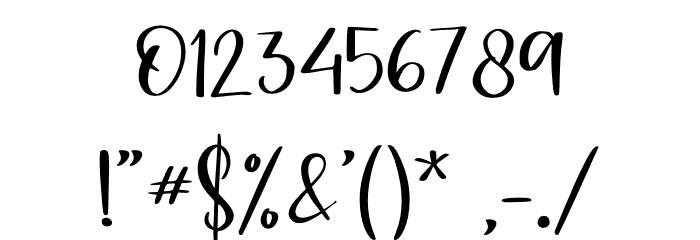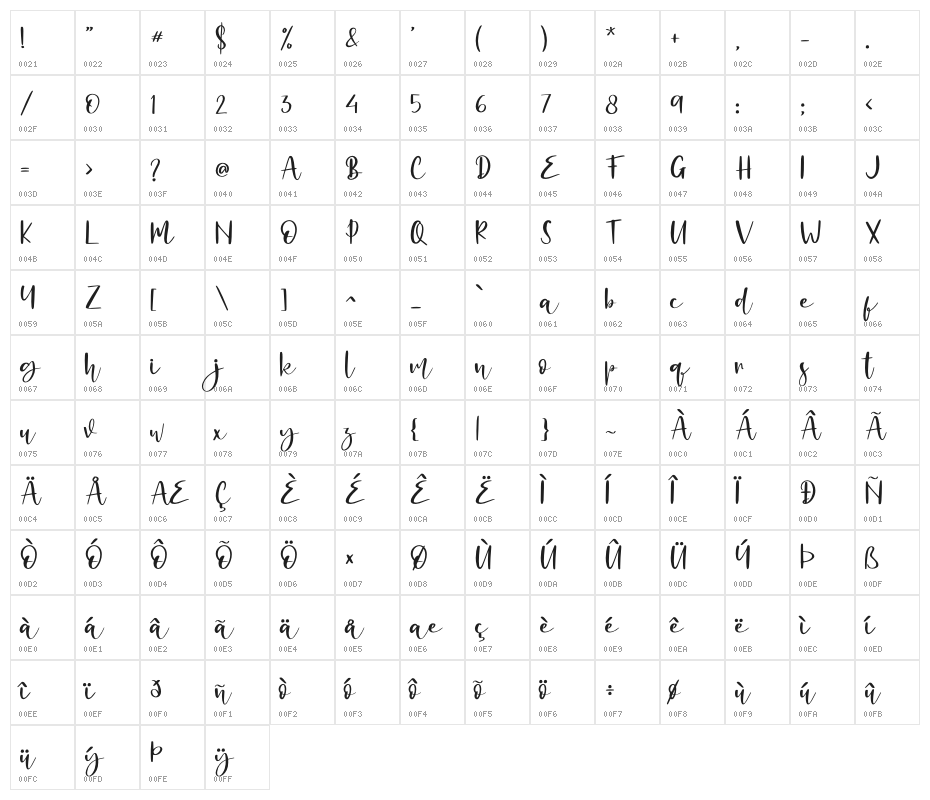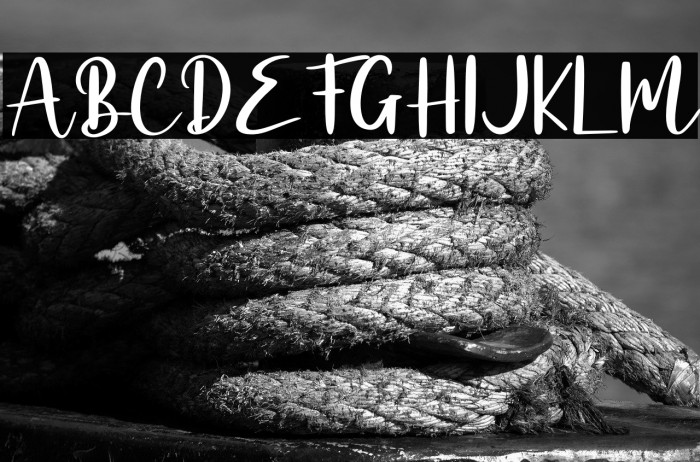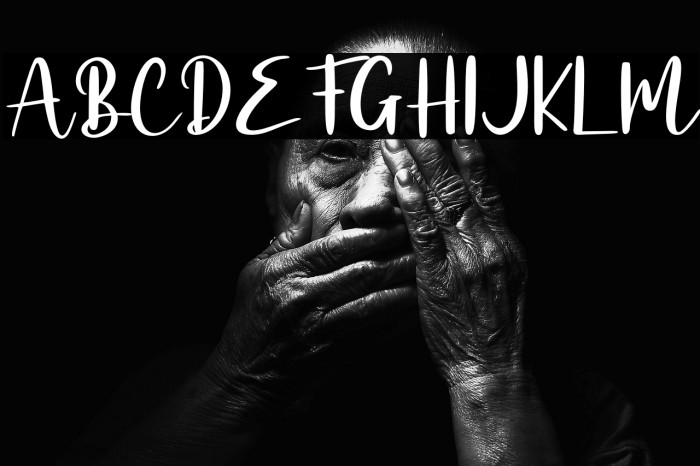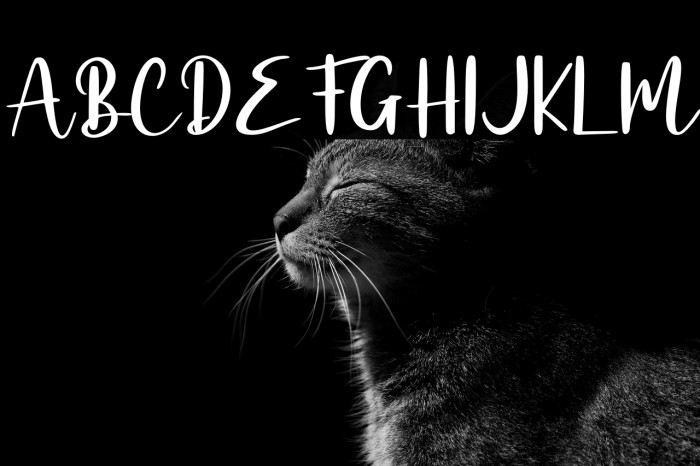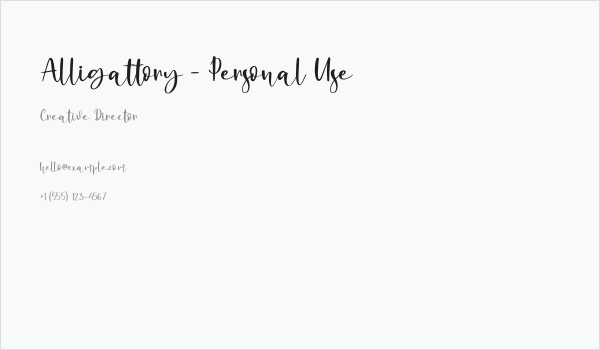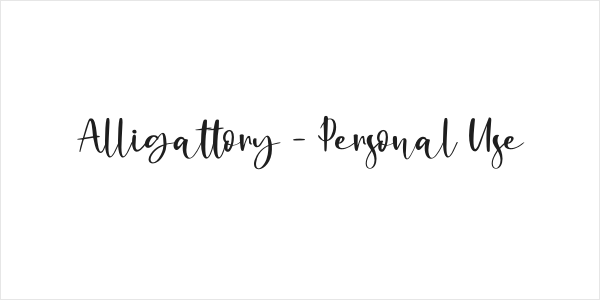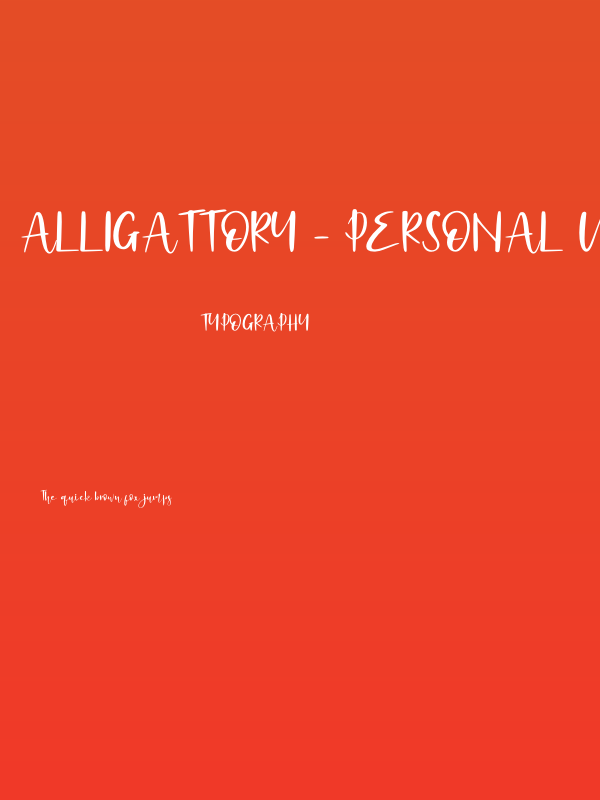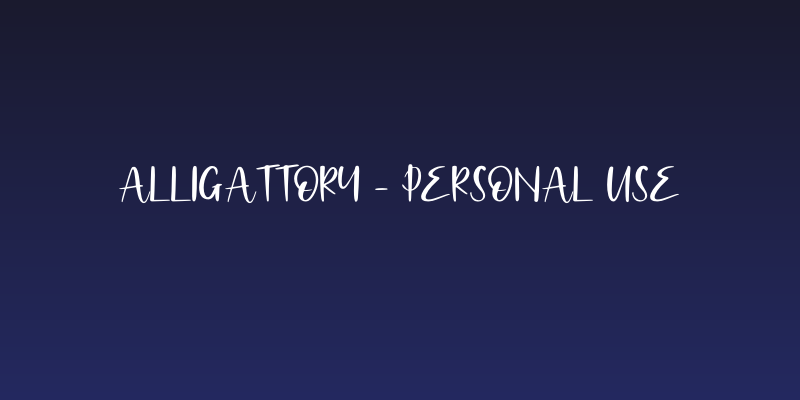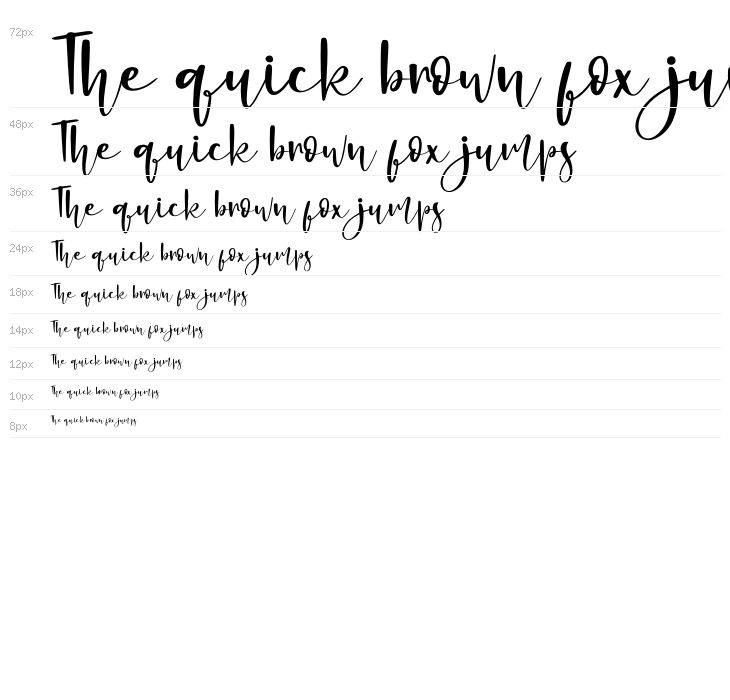
Alligattory - Personal Use Font
Alligattory - Personal Use Description
This font features a playful and energetic script style, characterized by its fluid and dynamic strokes. The letters are interconnected, creating a sense of movement and continuity. The uppercase letters are bold and expressive, while the lowercase letters maintain a consistent flow with elegant loops and curves. The numerals and special characters complement the overall design with a similar lively flair. This font is perfect for projects that require a personal and informal touch, such as invitations, greeting cards, and branding materials.